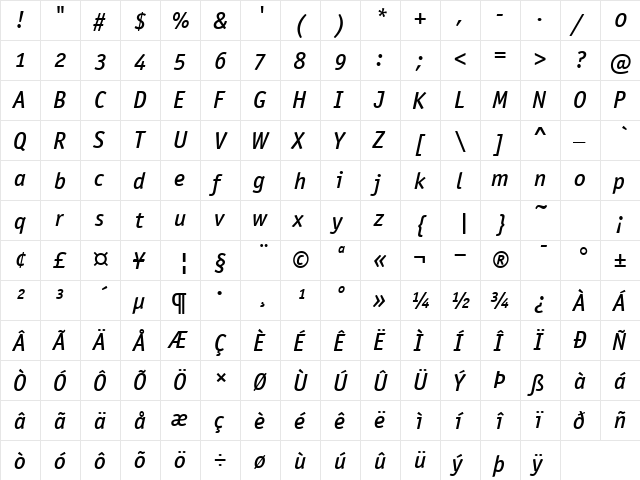
OfficinaSanOSITCTT MediumIta
| Foundry | International Typeface Corporation |
| Designer | Erik Spiekermann/Ole Schaefer |
Design Context for OfficinaSanOSITCTT Typeface
OfficinaSanOSITCTT is a composed and adaptable typeface that performs quietly and consistently across a wide range of design contexts.